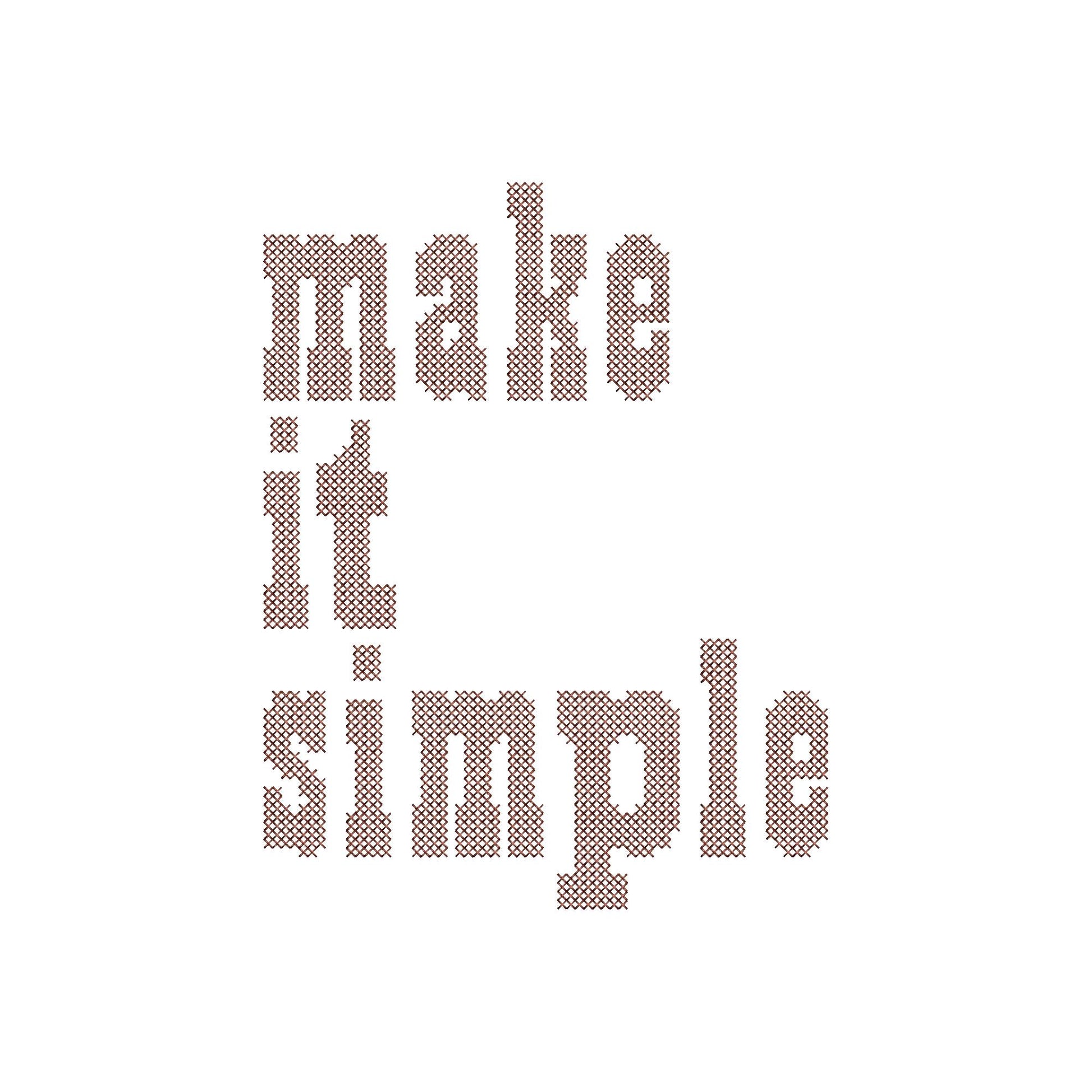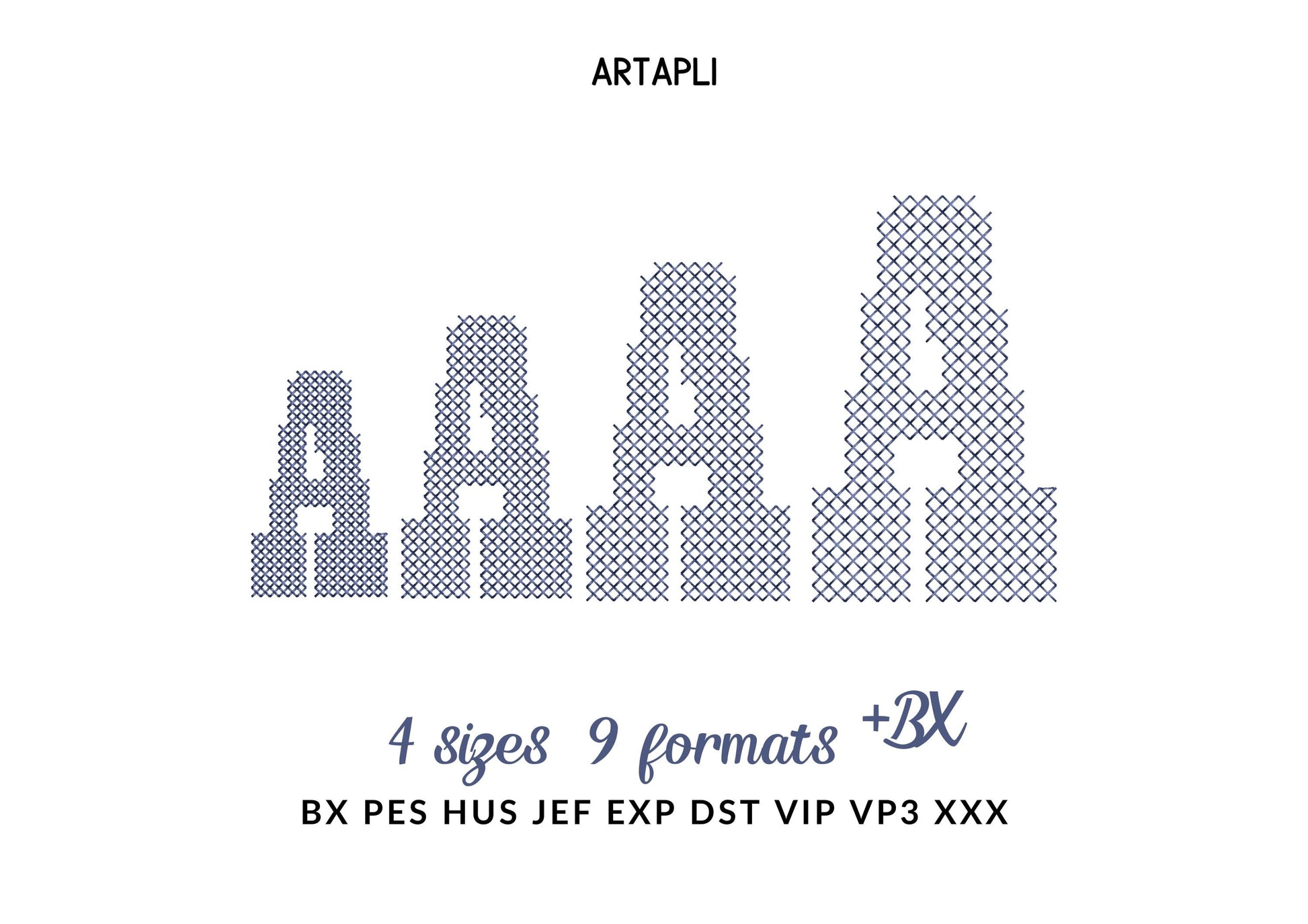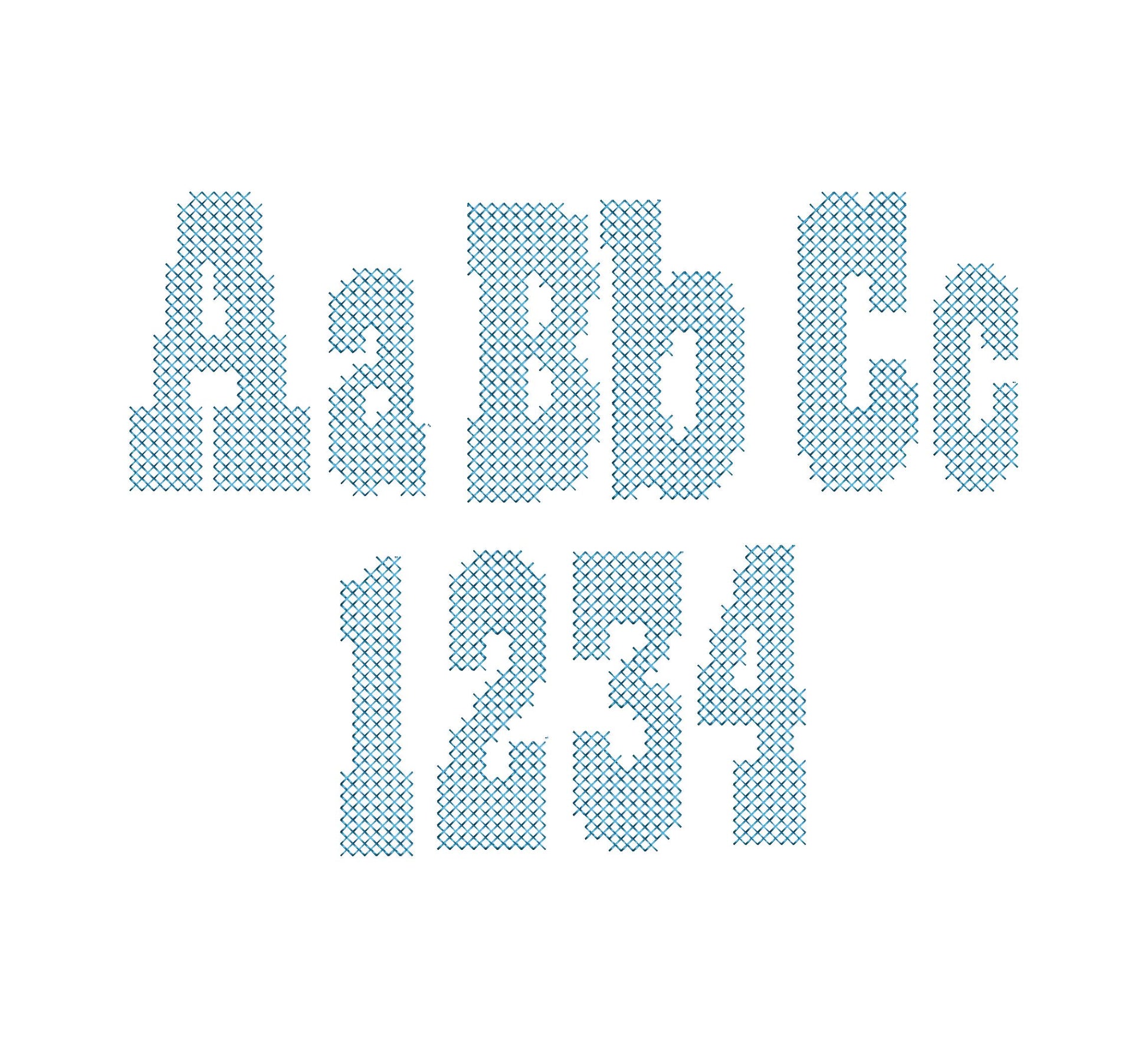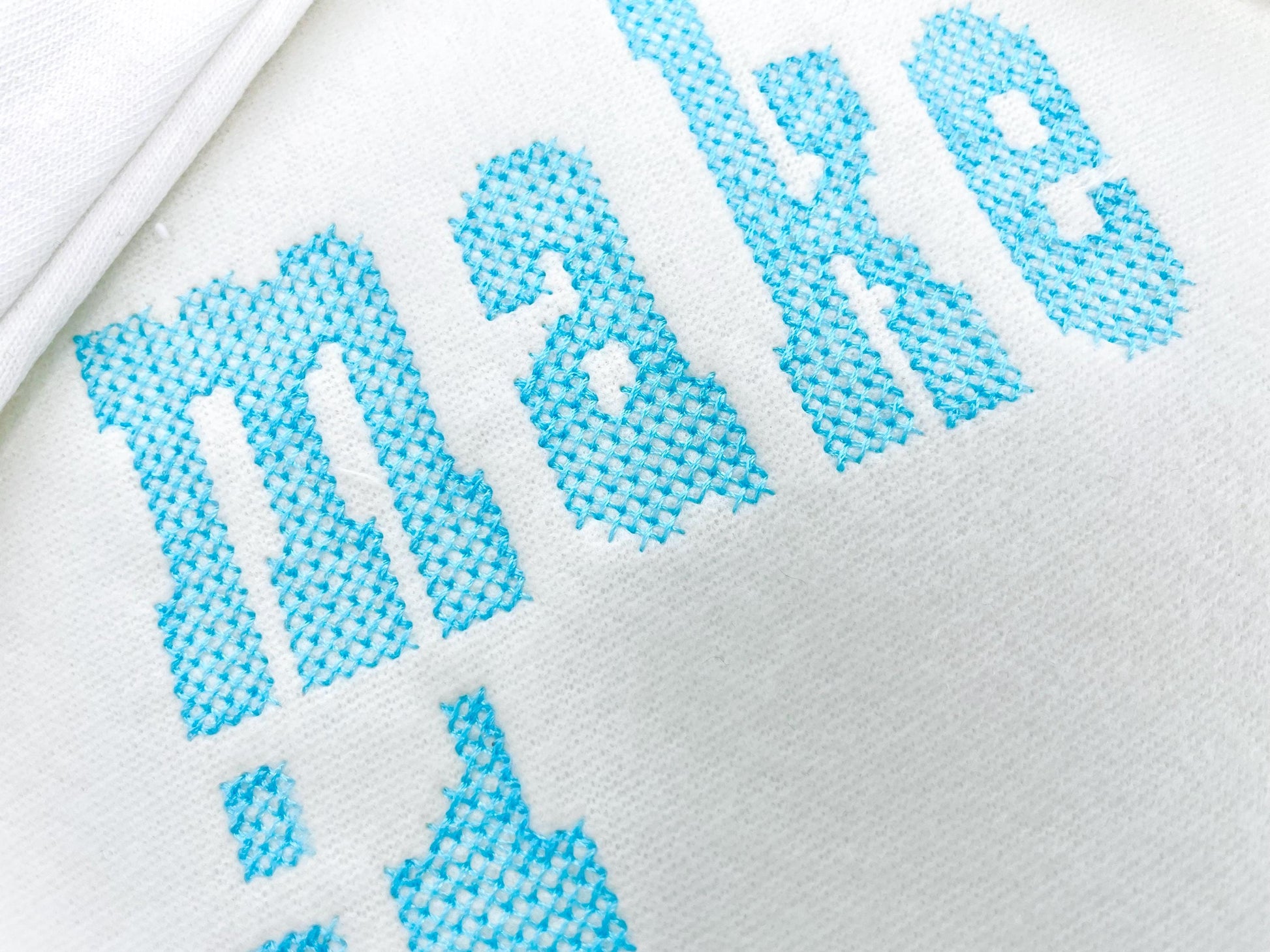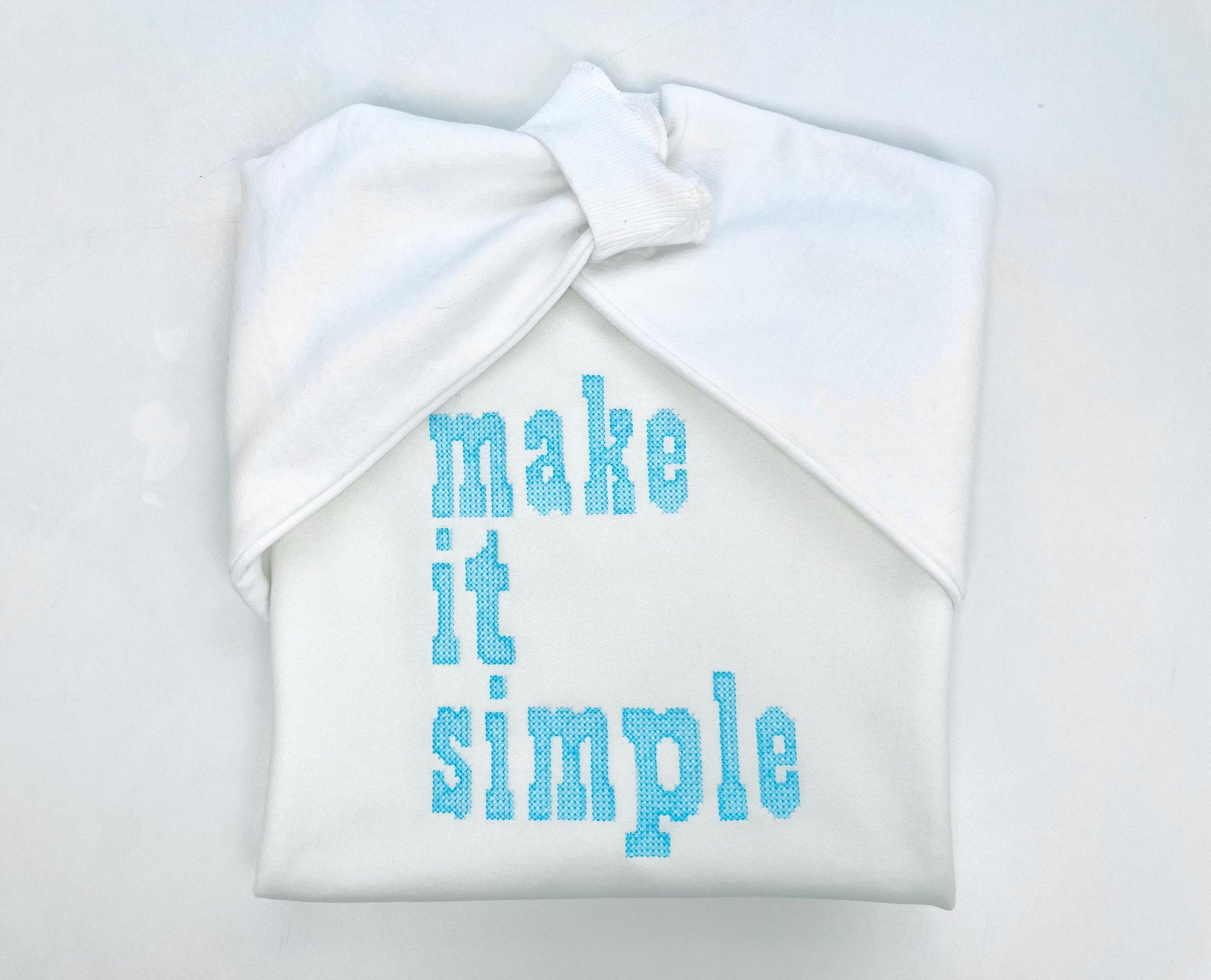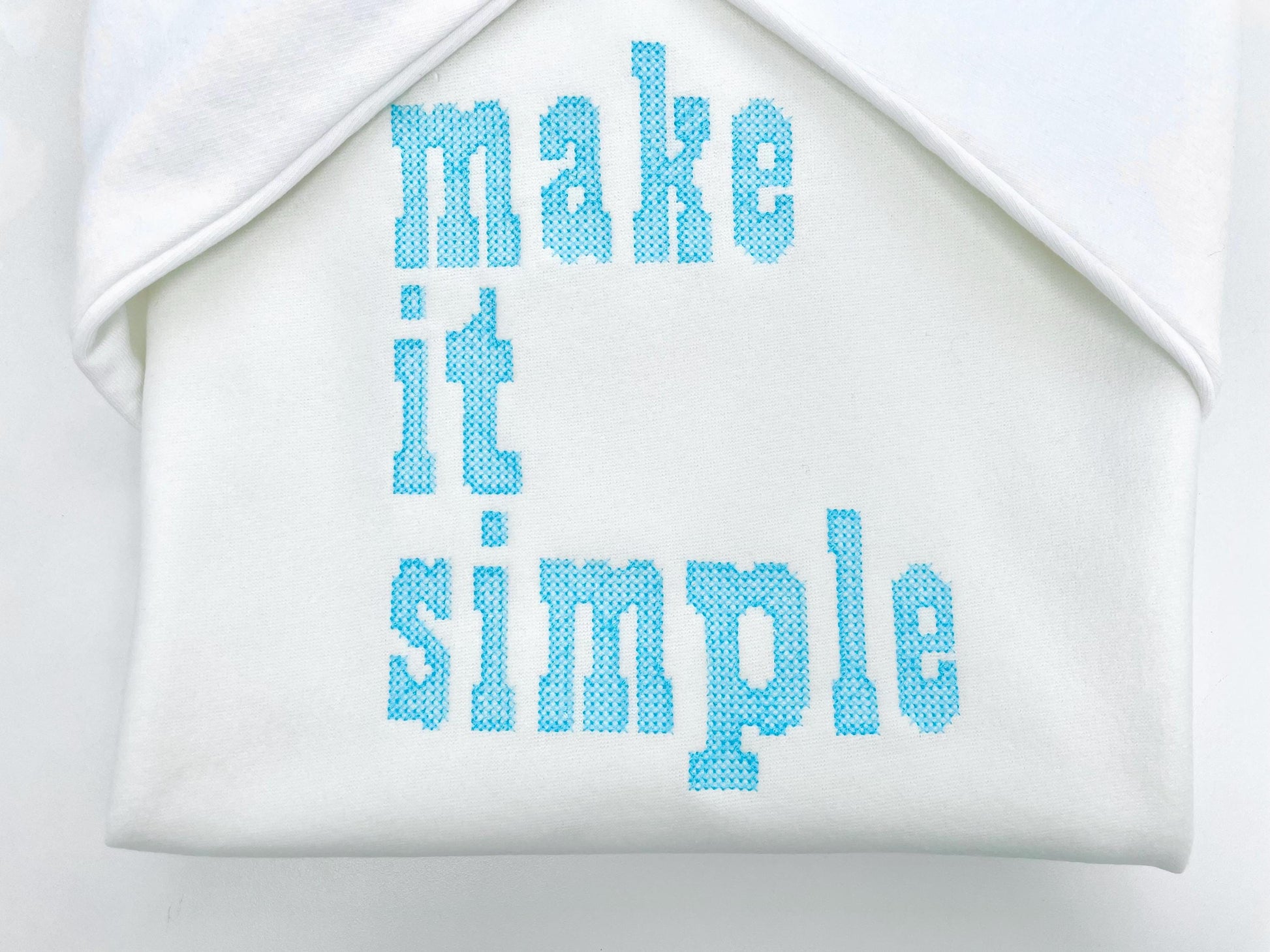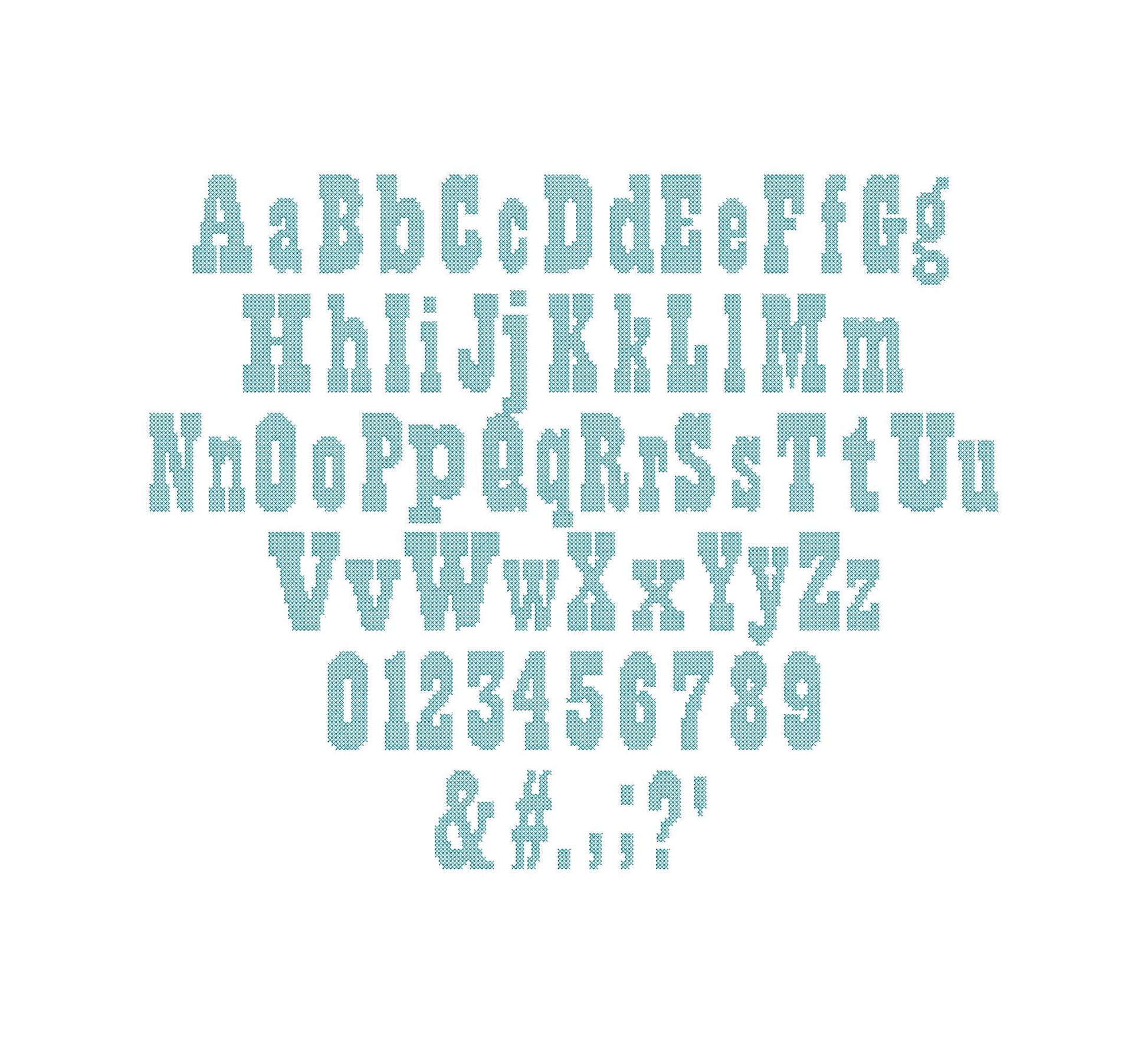
Cross Stitch Bold Font
Or click to open the linkA bold block font in cross stitch for a handmade look. Great for names, sayings, pillows and farmhouse decor.
Uppercase and lowercase letters, numbers 0 to 9 and lots of punctuation, in four sizes: 2, 2.5, 3 and 3.5 inches.
- Bold cross stitch block font
- Uppercase and lowercase letters, numbers 0-9, punctuation
- 4 sizes, 2 to 3.5 in